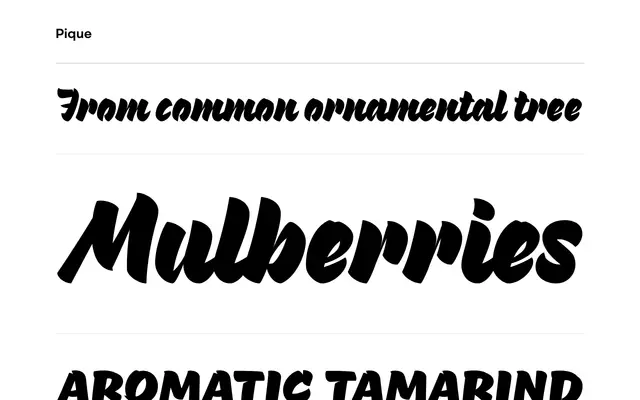
Pique
Process Type Foundry · Nicole Dotin · 2014
A single-weight brush script by Nicole Dotin that pairs hand-drawn energy with a crisp, contemporary finish.
Designed by Nicole Dotin and released in 2014, Pique brings together the looseness of brush lettering with a clean, screen-ready aesthetic. The typeface includes small caps designed specifically for all-caps settings, offering a typographic contrast to the flowing script letterforms. Ligatures and full small caps support make it well-suited to display and editorial work that needs expressive character without sacrificing legibility.
Pique is explicitly described as a brush script, combining hand-drawn brush stroke characteristics with a contemporary, crisp aesthetic suited to display settings.